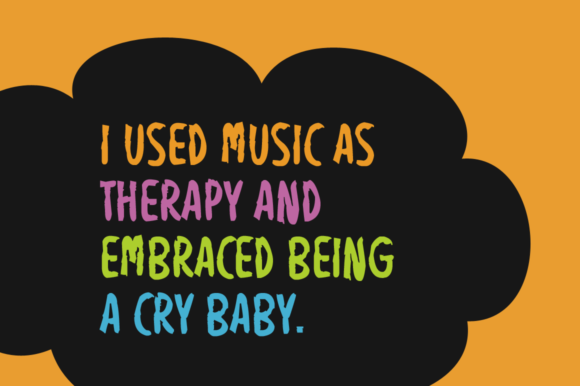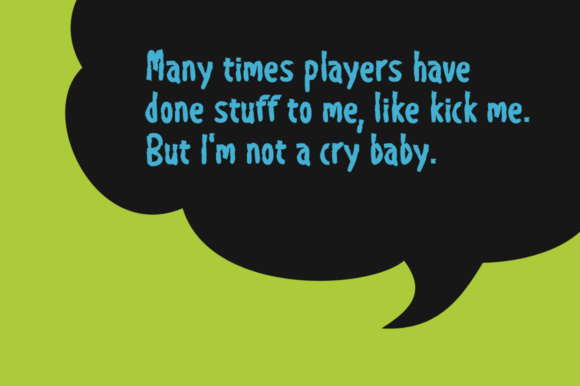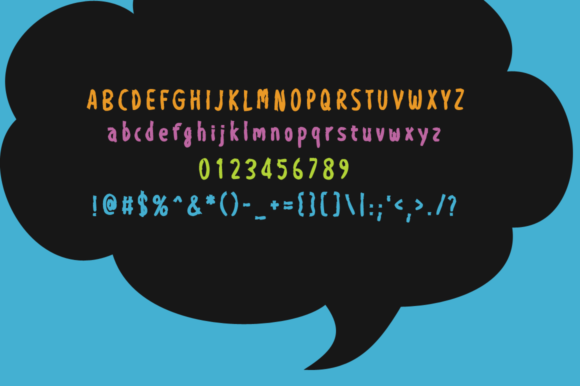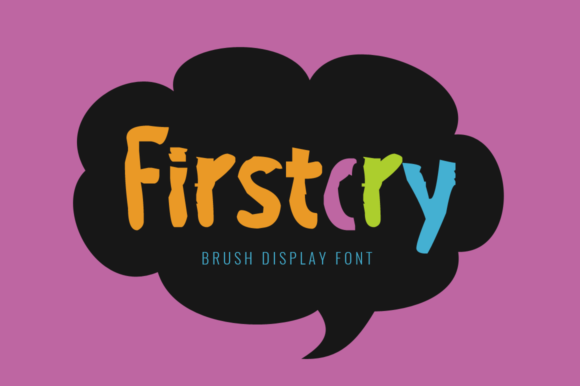
Introducing Firstcry Font: A Playful and Whimsical Display Font
Are you tired of using the same old fonts in your designs? Look no further! Firstcry Font is a one-of-a-kind display font that is sure to add a touch of playfulness and whimsy to your projects. In this article, we’ll dive into the unique features of Firstcry Font and explore how you can use it to take your designs to the next level.
A Unique Feel
Firstcry Font is a truly unique font that stands out from the crowd. Its playful and whimsical feel makes it perfect for designs that require a touch of personality and fun. Whether you’re working on a children’s book, a craft project, or a branding campaign, Firstcry Font is sure to bring a smile to your audience’s face.
Key Features of Firstcry Font
- Playful and Whimsical: Firstcry Font has a unique feel that is both playful and whimsical, making it perfect for designs that require a touch of personality and fun.
- Display Font: Firstcry Font is a display font, making it perfect for headlines, titles, and other large text elements.
- Unique Letterforms: Each letterform in Firstcry Font is unique and carefully crafted to create a sense of playfulness and whimsy.
- Highly Legible: Despite its playful feel, Firstcry Font is highly legible, making it perfect for use in a variety of design applications.
Using Firstcry Font in Your Designs
Firstcry Font is a versatile font that can be used in a variety of design applications. Here are a few ideas to get you started:
- Children’s Books: Firstcry Font is perfect for children’s books, adding a touch of playfulness and whimsy to your story.
- Craft Projects: Firstcry Font is a great choice for craft projects, such as scrapbooking, card making, and other paper crafts.
- Branding Campaigns: Firstcry Font can be used to add a touch of personality and fun to your branding campaigns, making your brand stand out from the crowd.
- Signage: Firstcry Font is perfect for signage, adding a touch of playfulness and whimsy to your signs and displays.
Tips for Using Firstcry Font
Here are a few tips for using Firstcry Font in your designs:
- Use it sparingly: Firstcry Font is a display font, so use it sparingly to add emphasis and personality to your designs.
- Pair it with a simple font: Pair Firstcry Font with a simple font to create contrast and add visual interest to your designs.
- Experiment with colors: Firstcry Font looks great in a variety of colors, so don’t be afraid to experiment and find the perfect color for your design.
Firstcry Font is a one-of-a-kind display font that is sure to add a touch of playfulness and whimsy to your designs. With its unique feel, highly legible letterforms, and versatility, Firstcry Font is perfect for a variety of design applications. Whether you’re a designer, crafter, or DIY enthusiast, Firstcry Font is sure to inspire you to create something truly special.
Get Inspired by Firstcry Font
So why wait? Get inspired by Firstcry Font today and take your designs to the next level. With its playful and whimsical feel, Firstcry Font is sure to bring a smile to your audience’s face and make your designs stand out from the crowd.